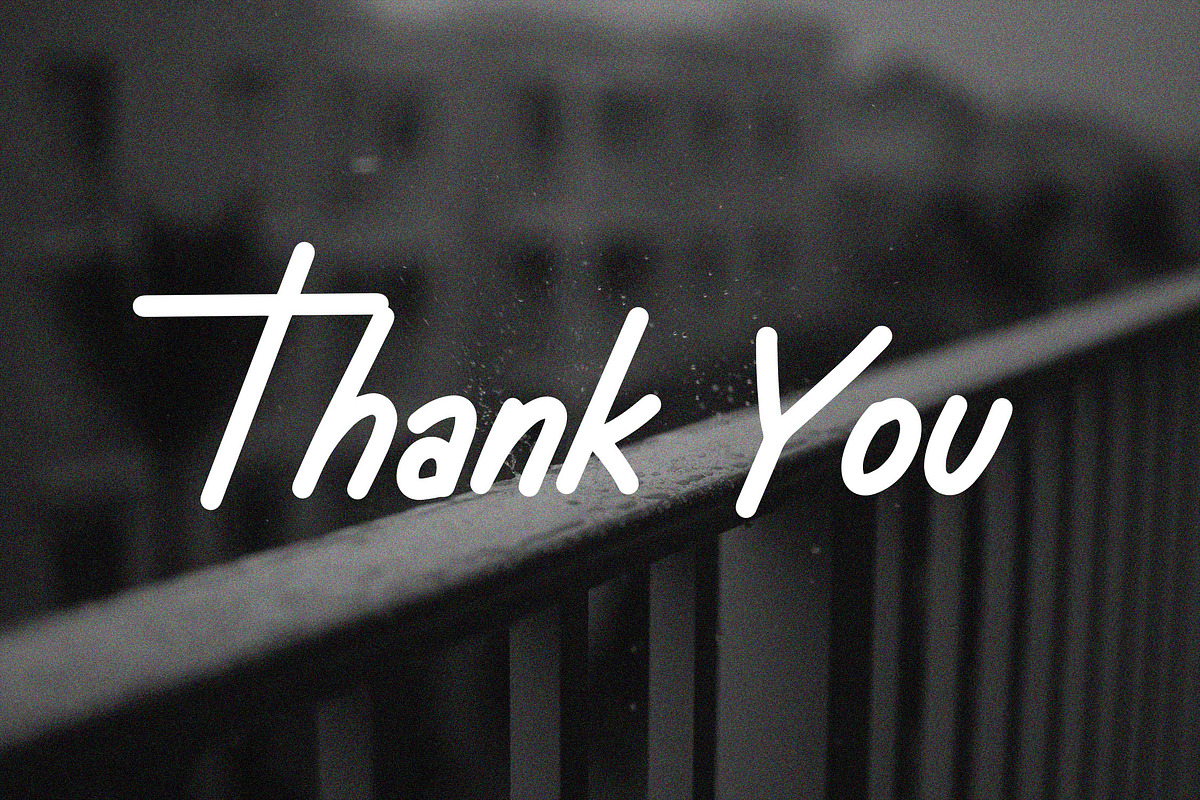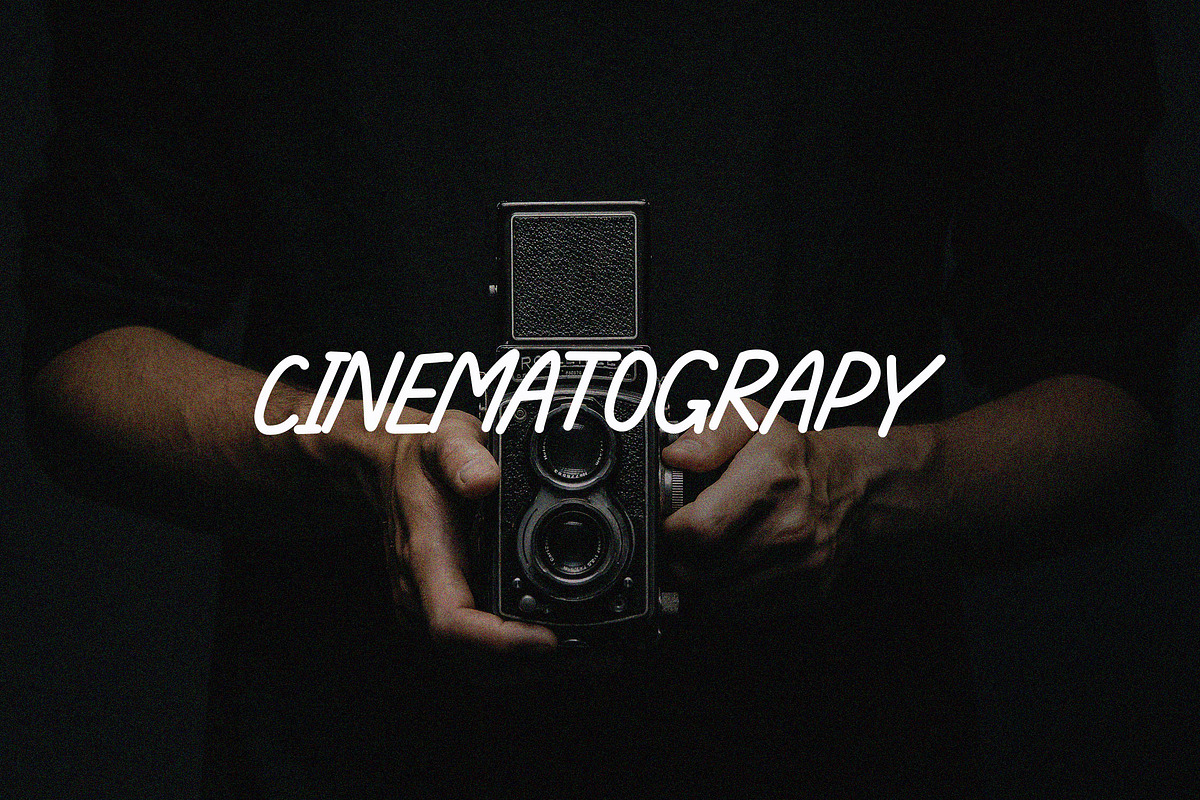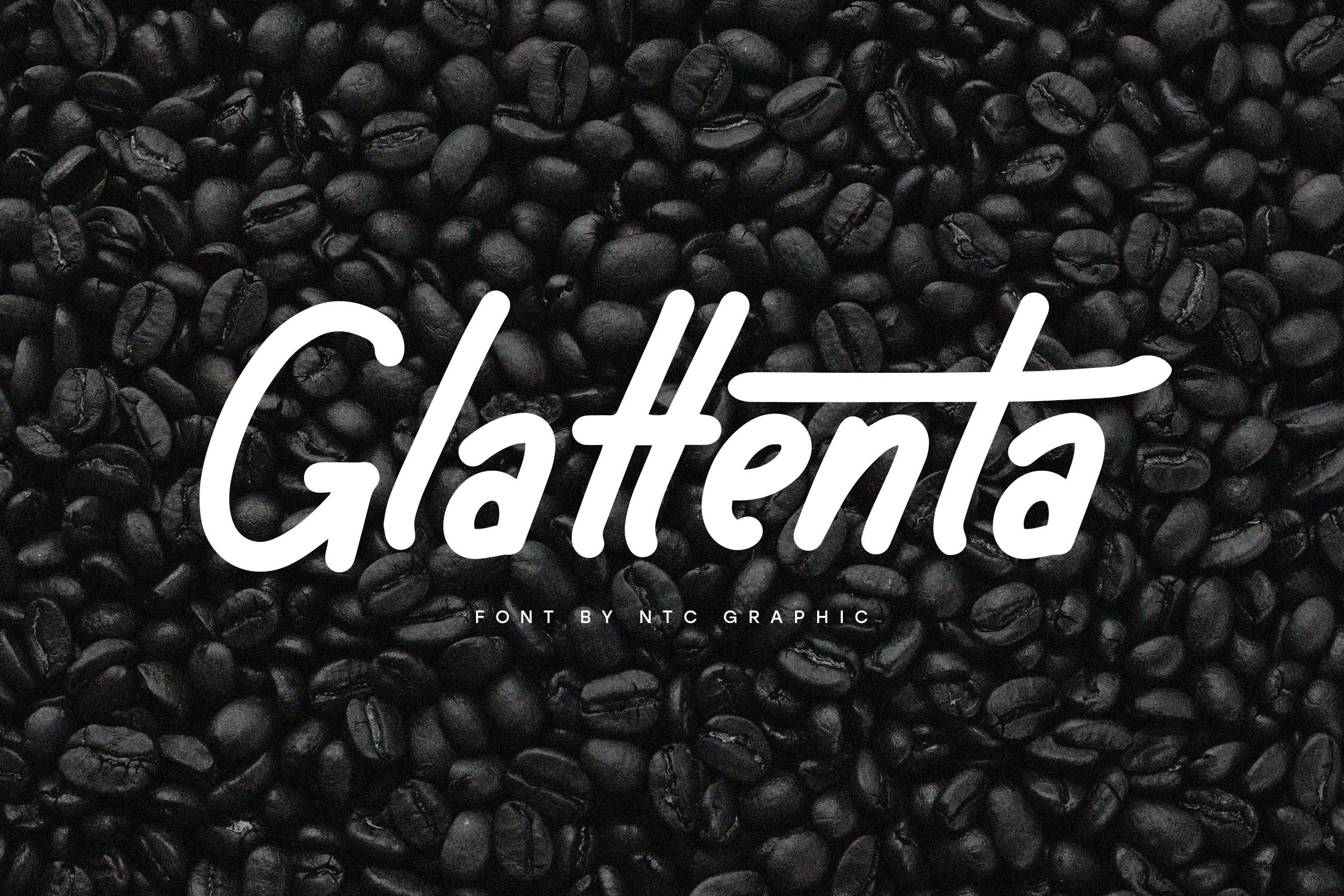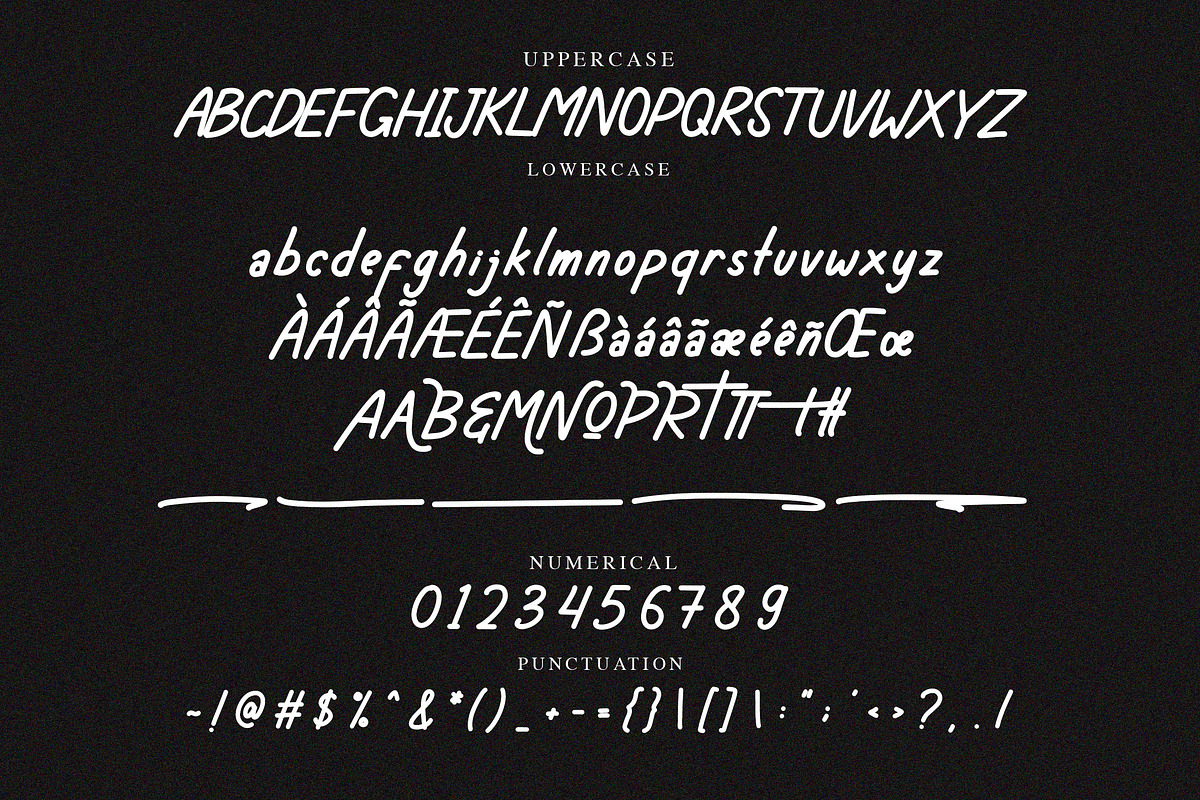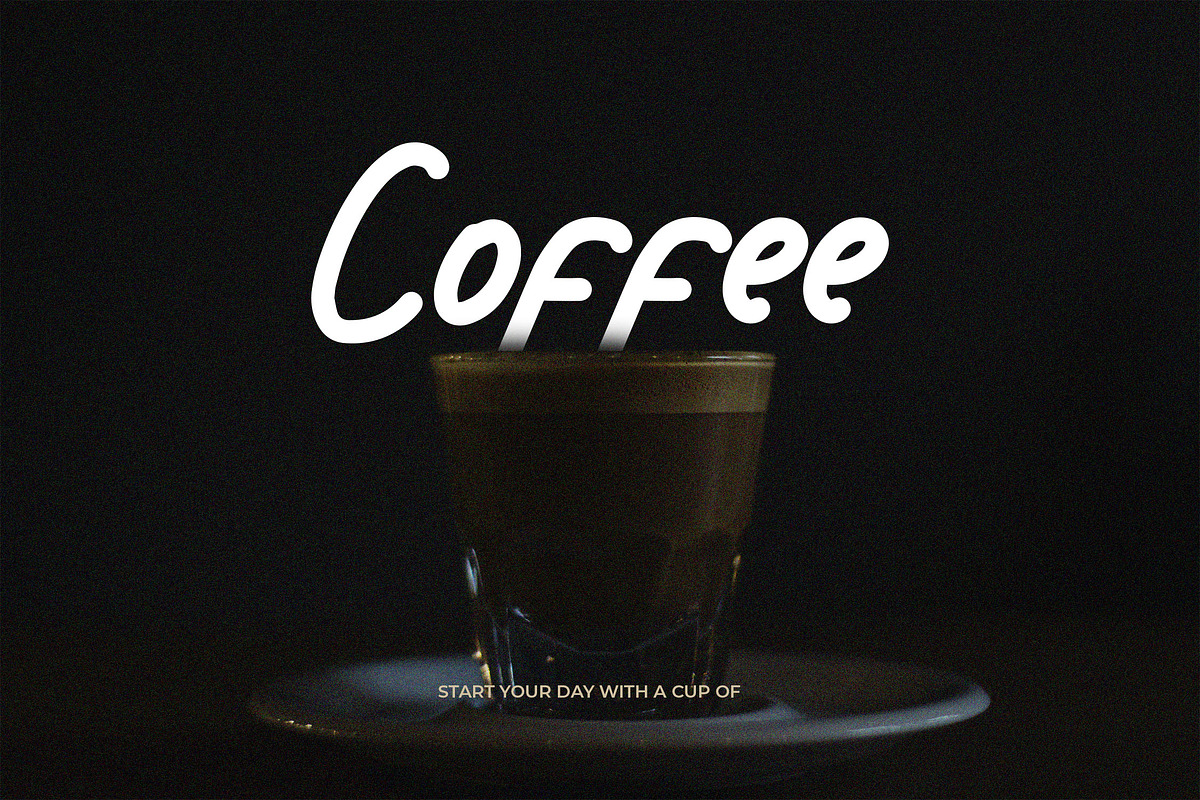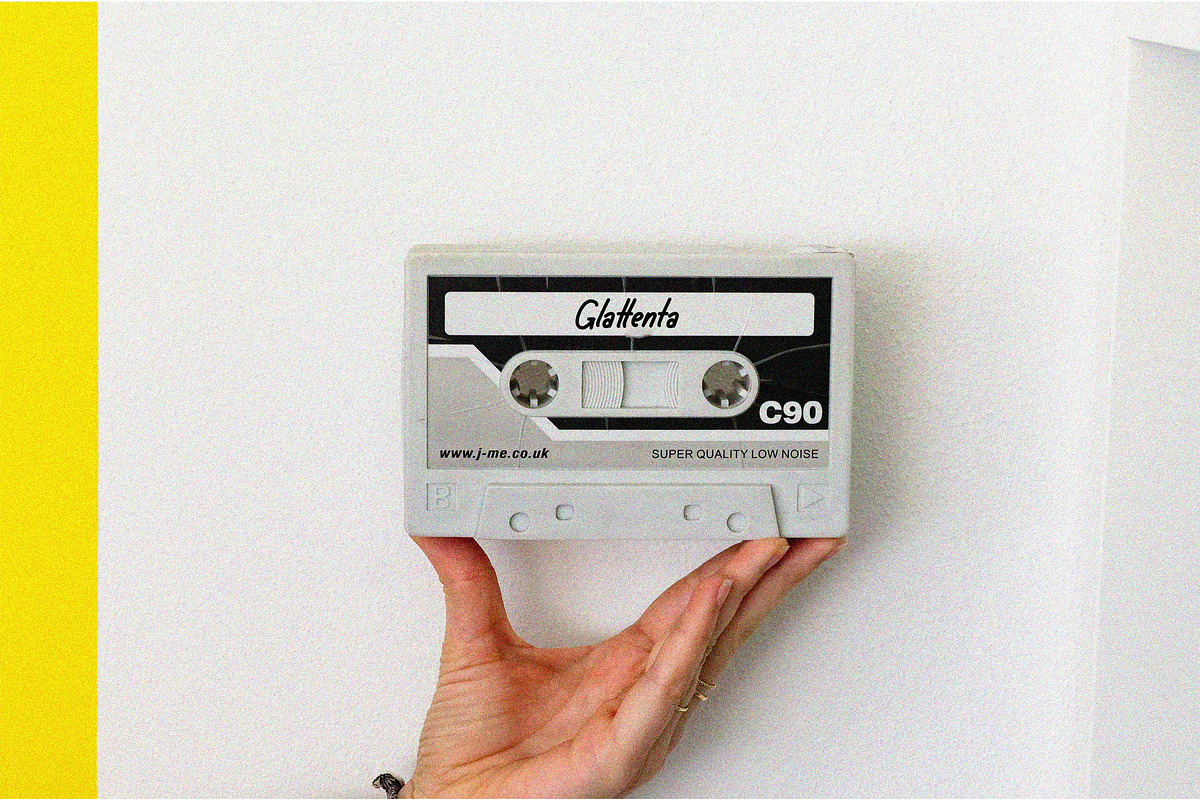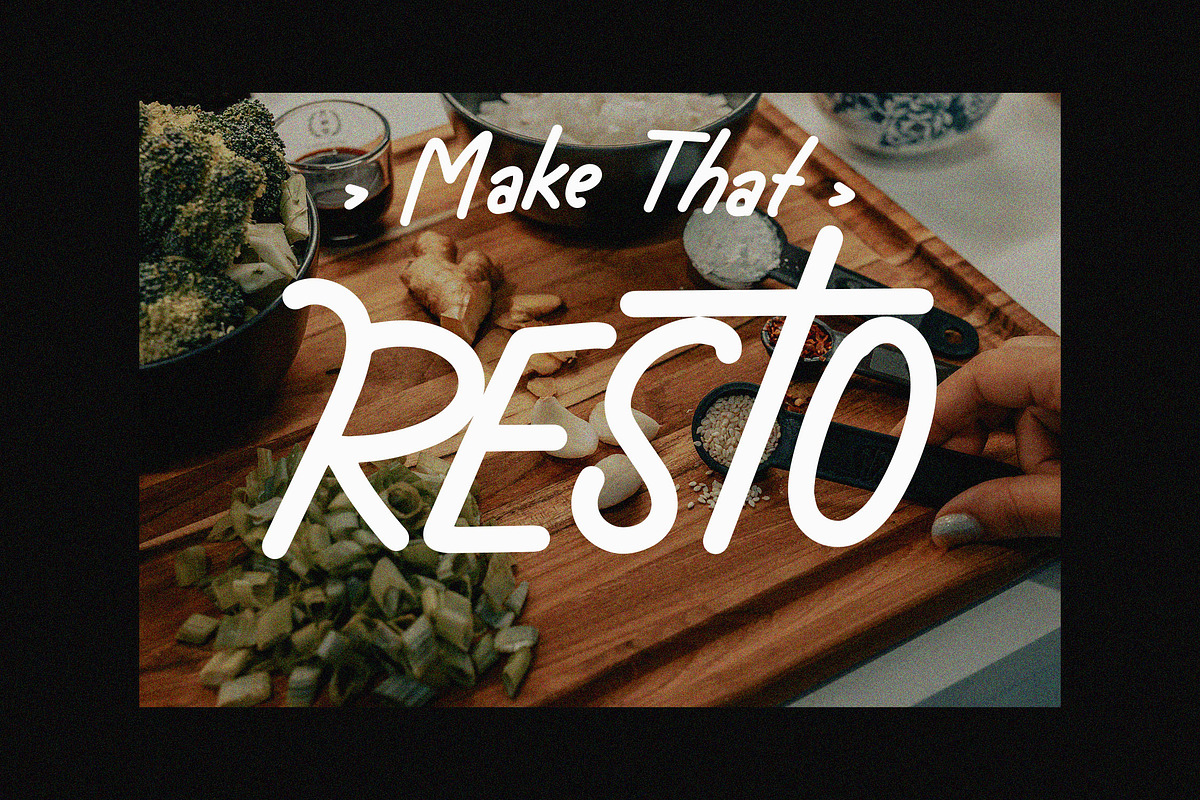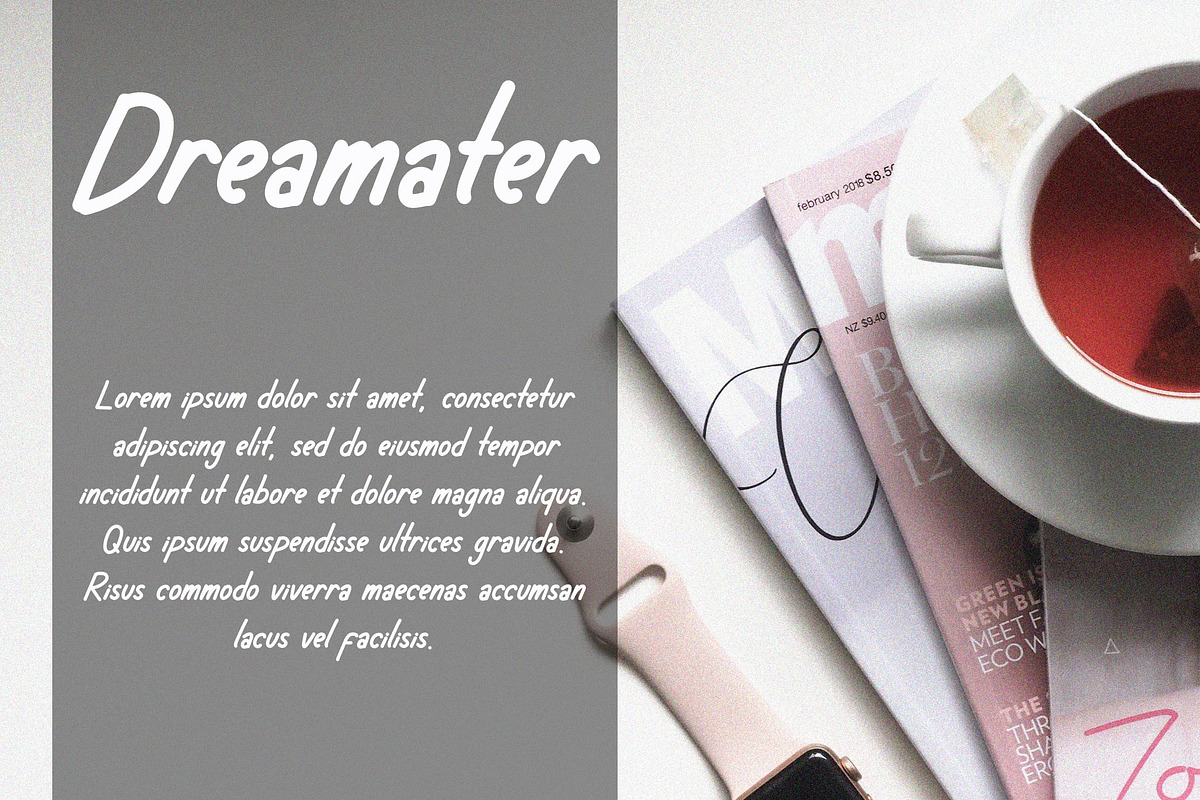
Glattenta Handwritten Font
Glattenta is a handwritten font with minimalist style. Is a font style that is made with unique shapes font characters are really good. Can be applied to support the graphic appearance of the product to be more attractive.
- Stylistic Alternate